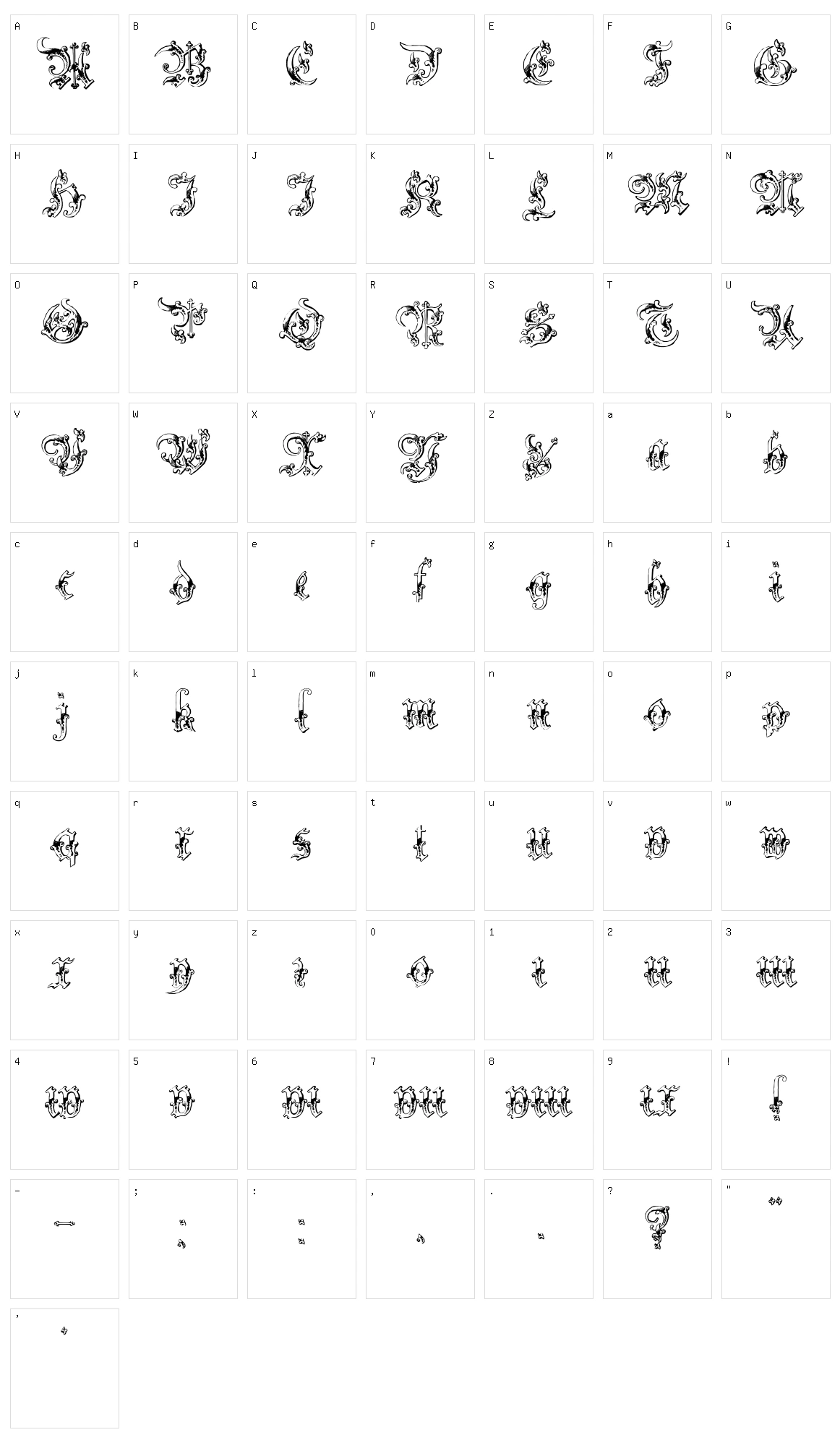
Strelsau
Designed by: Paul Lloyd
Strelsau
========
Black letter meets high Victorian, with interesting results I
think :) Yet another of my fonts named out of the novel "Prisoner of
Zenda - which of course itself is a piece of high Victorian folly.
Petra described this one as what a 16th century 'Circus' face would look like.
It certainly lives up to that impression. The truth is a little more prosaic...
a 19th vcentury printer's Fraktur revival, but in either case, a very very
impressive face to behold, and quite the thing for titles in the appropriate
document.
I can see this one on the title page of an historical novel published in
Victorian times.